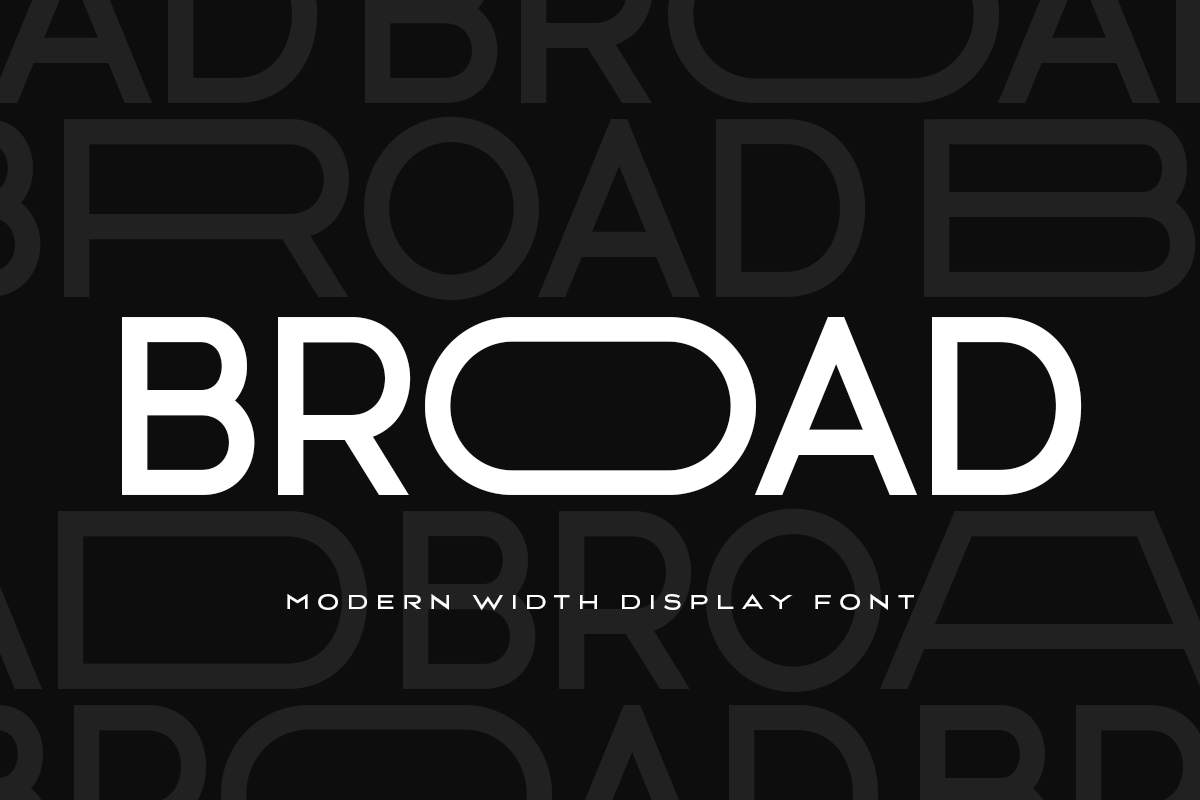
BROAD
-Modern Width Display Font
Broad
BROAD is a Modern Width or Extended Font Sans Serif perfect for Display Needs
A Display Sans Serif font that we created special for unique branding needs, with extended character that will add an unique of your typography style. It's so nice to leverage designer or product owner that need solutions to make their design look more unique and standout.